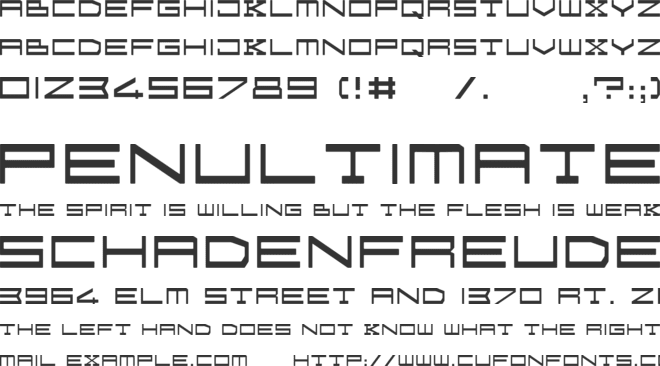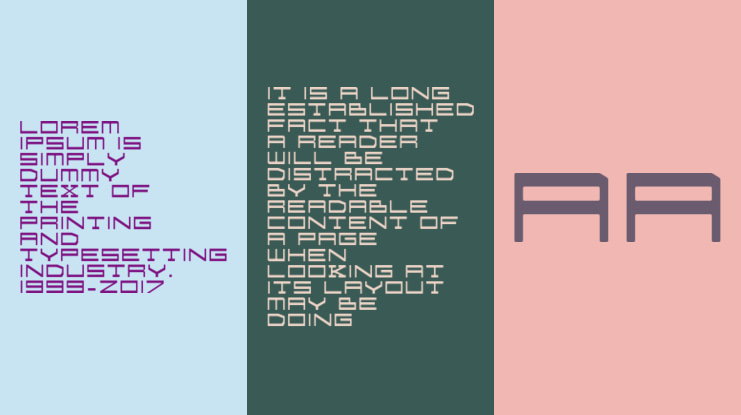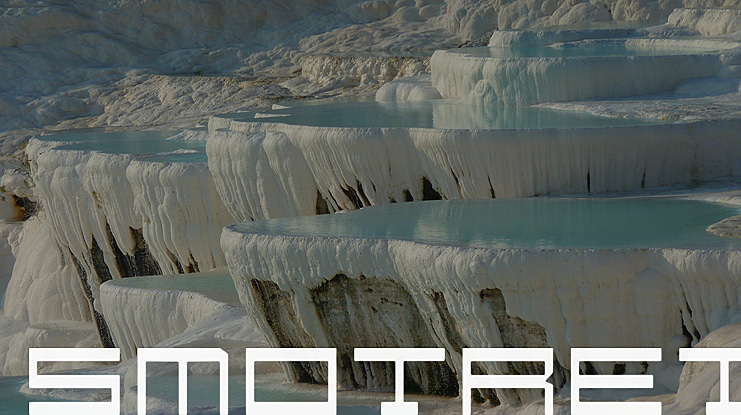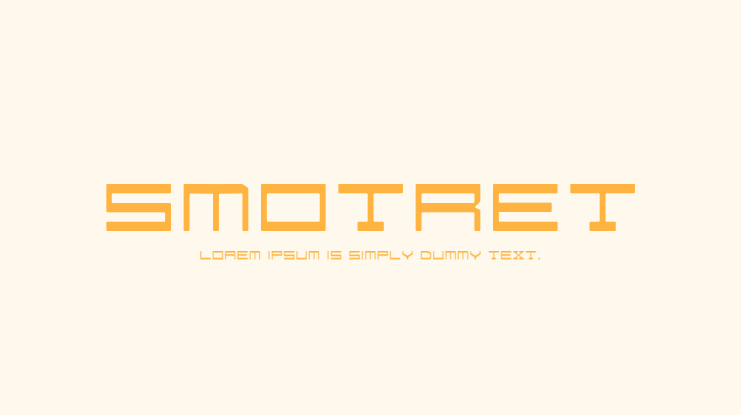
Smotret Font
Smotret is a blend of futuristic and oldschool style typeface, inspired by an old russian clock in my house. Energetic, geometric and bold. I will make your text POP even more. Contains ligatures to make the text even wider.